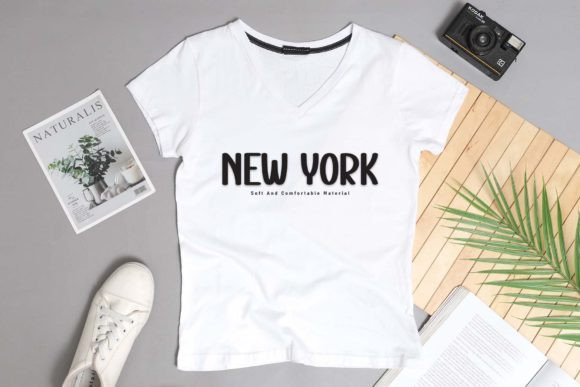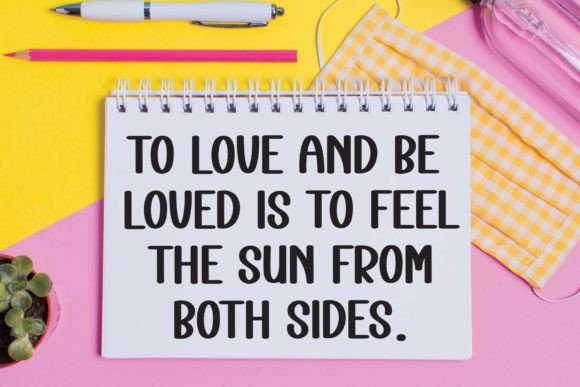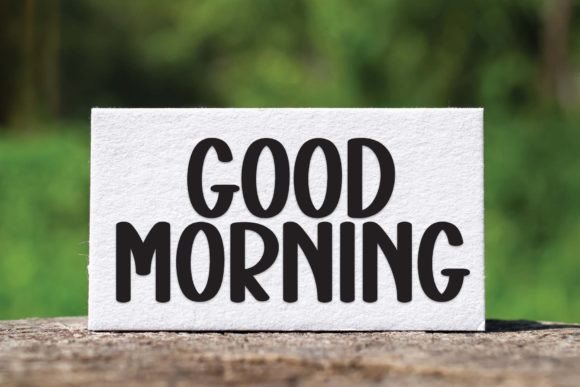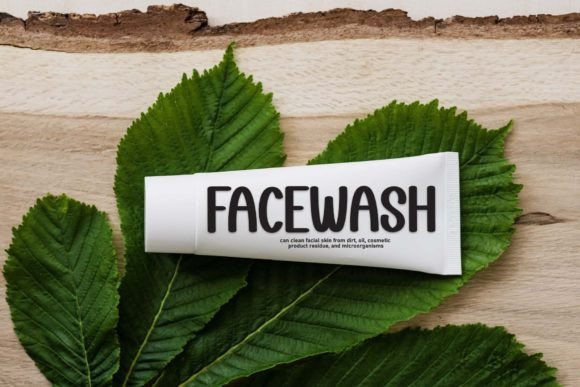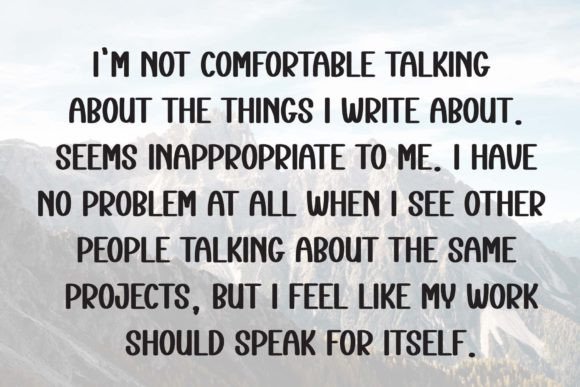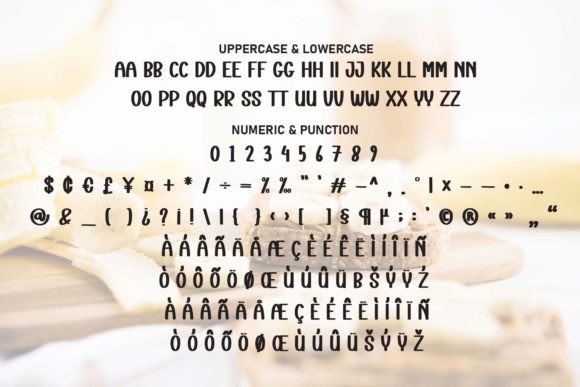
The Perfect Font for Your Cozy Brand: A Deep Dive into Bread Banana Font
I’ll never forget the struggle I faced while working on a branding project for a local bakery. I was on a mission to find the perfect font that would capture the warmth and coziness of freshly baked goods. After hours of scrolling through font libraries, I stumbled upon Bread Banana Font, and it was love at first sight! In this article, I’ll share my experience with this delightful typeface, its features, and how to make the most of it in your designs.
An Honest Review of Bread Banana Font
Bread Banana Font has quickly become one of my go-to fonts for wholesome branding, cozy invitations, and friendly social media graphics. Here’s what I love about it:
- ✨ Natural and casual vibe: Bread Banana Font exudes a relaxed and organic feel that’s perfect for designs that require a friendly touch.
- ✅ Clean lines and unpretentious style: The font’s simplicity makes it easy to read and pairs well with a variety of design elements.
- 💡 Highly versatile: Bread Banana Font can be used for a wide range of projects, from branding and packaging to social media graphics and invitations.
While Bread Banana Font is a great choice for many projects, it’s not without its quirks:
- 🤔 Limited font weights: Bread Banana Font currently offers only a few font weights, which might limit its use in certain designs that require a high level of typographic flexibility.
- ⚠️ Glyph coverage: While the font covers a wide range of languages, it might not have all the glyphs you need for specific projects.
The Story Behind Bread Banana Font
Bread Banana Font was designed with the intention of creating a typeface that would evoke a sense of warmth and coziness. The designer, inspired by the simplicity of hand-drawn signs and the elegance of natural forms, crafted a font that’s both approachable and visually appealing.
| Font Name | Bread Banana Font |
| What is Bread Banana Font? | Bread Banana Font is a natural and casual sans-serif font designed for wholesome branding, cozy invitations, and friendly social media graphics. |
| Does Bread Banana Font support OpenType features? | Yes, Bread Banana Font supports OpenType features, including ligatures and stylistic alternates. |